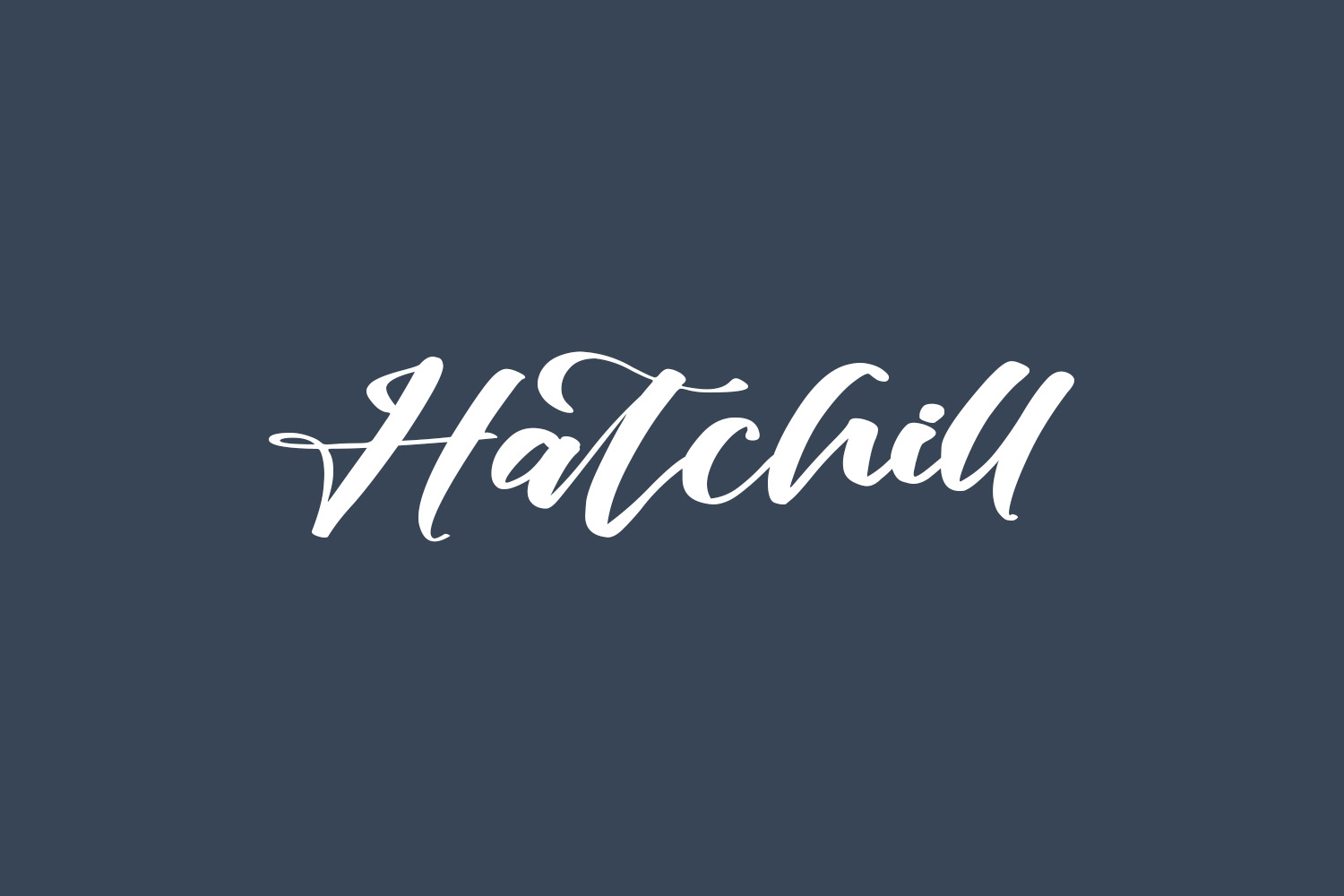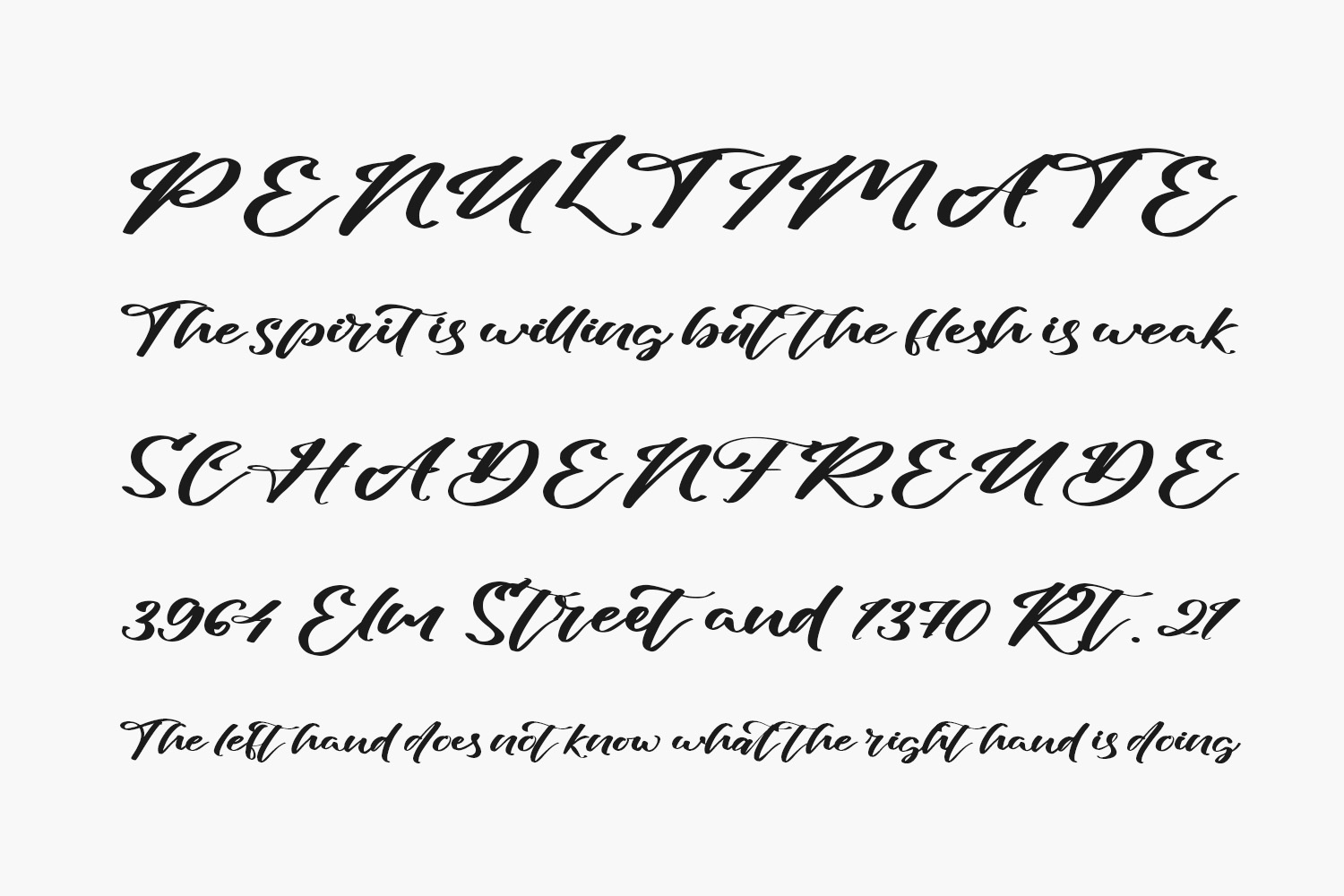
Hatchill Free Font is a modern and playful handwritten script font. It’s great for crafters and designers. It looks beautiful on a variety of designs requiring a personalized style, such as wedding invitations, thank you cards, weddings, greeting cards, logos, and so on. Hatchill Free Font was designed by Kong Font and is free for personal use only. Please purchase the full version for commercial use.